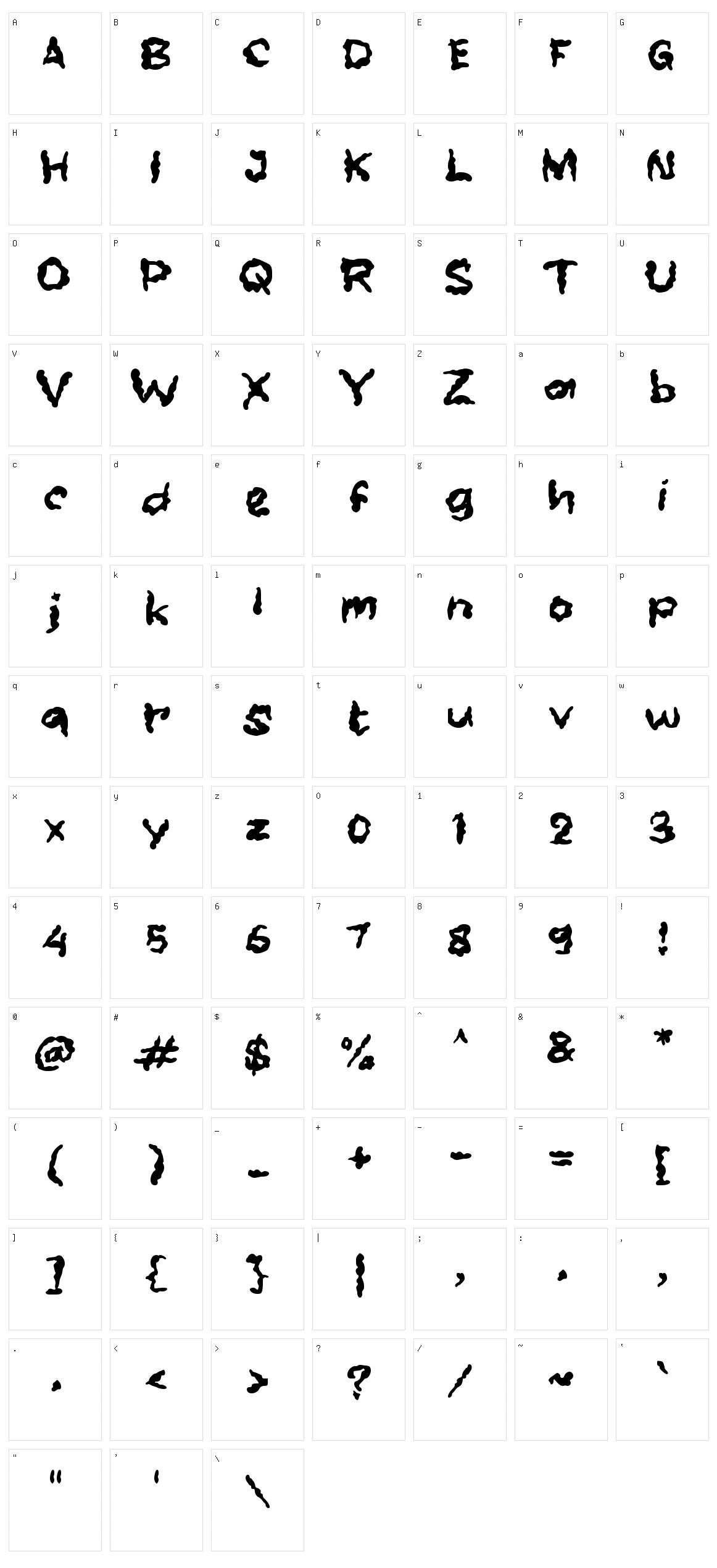
The free font d Dunia Imaji is carefully designed by wep, showcasing a thoughtful balance of creativity and usability and falls under the Trash font style. When you download the ZIP file, it contains only 18.84 KB of font files, making it lightweight and quick to download. Please review the license details below to understand permitted usage and distribution rights. If license information is not available, we recommend using this font for personal projects only or contacting the author directly for commercial usage permissions.